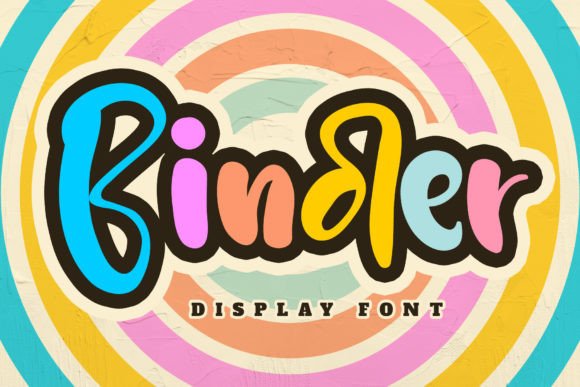
Binder: A Cheerful Display Font for Editorial Charm
As someone who designs newsletters, ebooks, and digital magazines—where tone, clarity, and visual warmth matter just as much as content—I’ve learned that a single display font can quietly shape how readers feel before they read a word. Binder is one of those rare typefaces that delivers personality without sacrificing structure. It’s not just playful—it’s purposefully upbeat, with rounded forms, gentle curves, and an unmistakable childlike sincerity that never veers into cutesy overload.
Visually, Binder balances simplicity and character: open counters, friendly letter spacing, and subtle irregularities in stroke weight give it warmth without compromising legibility at larger sizes. Its PUA encoding means you’ll have reliable access to alternates and stylistic sets—handy when designing custom quote graphics or chapter openers where a single letterform shift adds nuance. While it’s designed for impact rather than extended reading, its consistency across weights (where available) supports thoughtful hierarchy—think bold headlines paired with a lighter subheading variant, all within the same family.
In editorial design, Binder shines where attention and mood converge. Use it for blog post headers that need to stand out in a crowded feed—especially lifestyle, parenting, or wellness content where approachability is part of the message. On magazine covers, it anchors titles with energy: imagine “Summer Adventures” set in Binder over a sun-drenched photo, then balanced with a crisp serif like Merriweather or a neutral sans like Inter for bylines and issue numbers. That contrast doesn’t just look intentional—it guides the eye and signals voice.
Ebook creators will find Binder especially effective on title pages and chapter headings. In a recipe ebook, it transforms “Berry Bliss Muffins” from functional text into an invitation. In a coaching workbook or printable planner, Binder lends lightness to section dividers (“Your Weekly Intentions”, “Reflect & Reset”)—making structured content feel generous, not rigid. For lead magnets—think checklists, habit trackers, or guided journals—Binder adds tactile charm that encourages printing and display, reinforcing your brand’s supportive, human-centered ethos.
Newsletter designers benefit most when using Binder selectively—not as body copy, but as strategic punctuation. Try it for pull quotes pulled from longer articles, rendered in bright coral or sky blue against a soft gray background. Or use it in animated social media graphics shared from your newsletter: a 3-second loop of “You’ve Got This” in Binder, fading in letter by letter, builds recognition across platforms. Because it’s PUA encoded, you won’t lose special characters or accents when exporting to PDFs or embedding in email clients—critical for international audiences or multilingual subscriber lists.
Readability across formats is worth noting. Binder performs best at 24px and up on screen, and at 18pt+ in print. Avoid using it below 16px—even in bold—since its rounded terminals begin to blur on lower-resolution displays. For mobile layouts, pair it with a highly legible sans serif (like Manrope or Lato) for captions, navigation, and body text. In printables, test color contrast: while Binder sings against pastels and bright primaries, it recedes against mid-tone yellows or washed-out teals. Always preview in grayscale to confirm hierarchy holds.
Font pairing is where Binder reveals its editorial versatility. With serif body fonts—think Georgia for blogs or Adobe Garamond for print magazines—it creates a warm, grounded contrast: tradition meets levity. With clean sans serifs like Open Sans or Source Sans Pro, it offers rhythm and relief—ideal for digital-first publications where speed and scannability are priorities. Avoid pairing it with other display fonts or scripts; its personality is strong enough to carry the accent role alone. If your project includes multilingual support, verify that the Binder package includes extended Latin characters—most premium versions do, but Cyrillic or Greek coverage varies by foundry.
Branding consistency is another quiet strength. When used across cover art, chapter dividers, and social banners, Binder becomes a recognizable signature—like a familiar voice in your publication’s chorus. A wedding planning guide might use it for “Vow Writing Tips” and “Seating Chart Essentials”, while keeping body text in a refined serif. A creator newsletter could apply Binder only to the subject line preview (“Your May Toolkit Is Here 🌸”)—making even inbox previews feel intentional and on-brand.
Ultimately, Binder isn’t about decoration. It’s about resonance. In a landscape saturated with minimalist sans serifs and overused script fonts, Binder offers something quieter but just as powerful: sincerity with structure, joy with intention. It reminds us that typography isn’t just about what’s said—it’s about how warmly, clearly, and memorably it’s received.